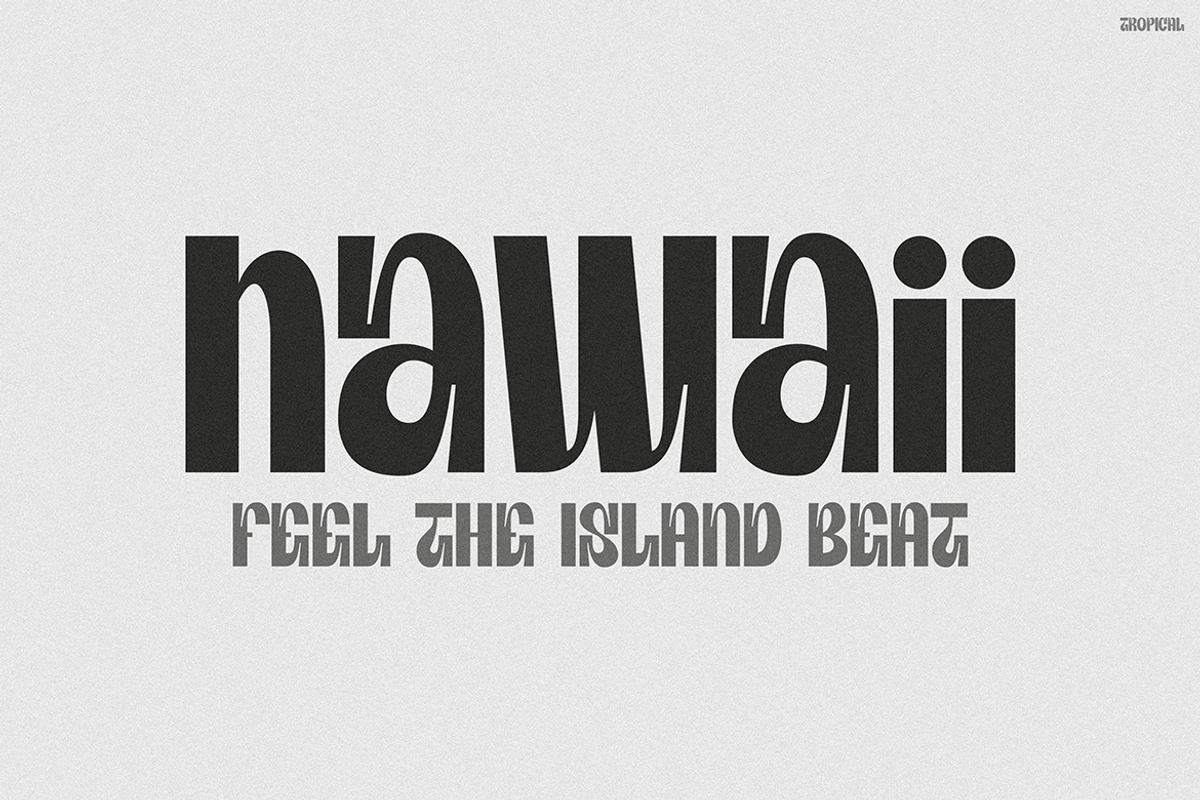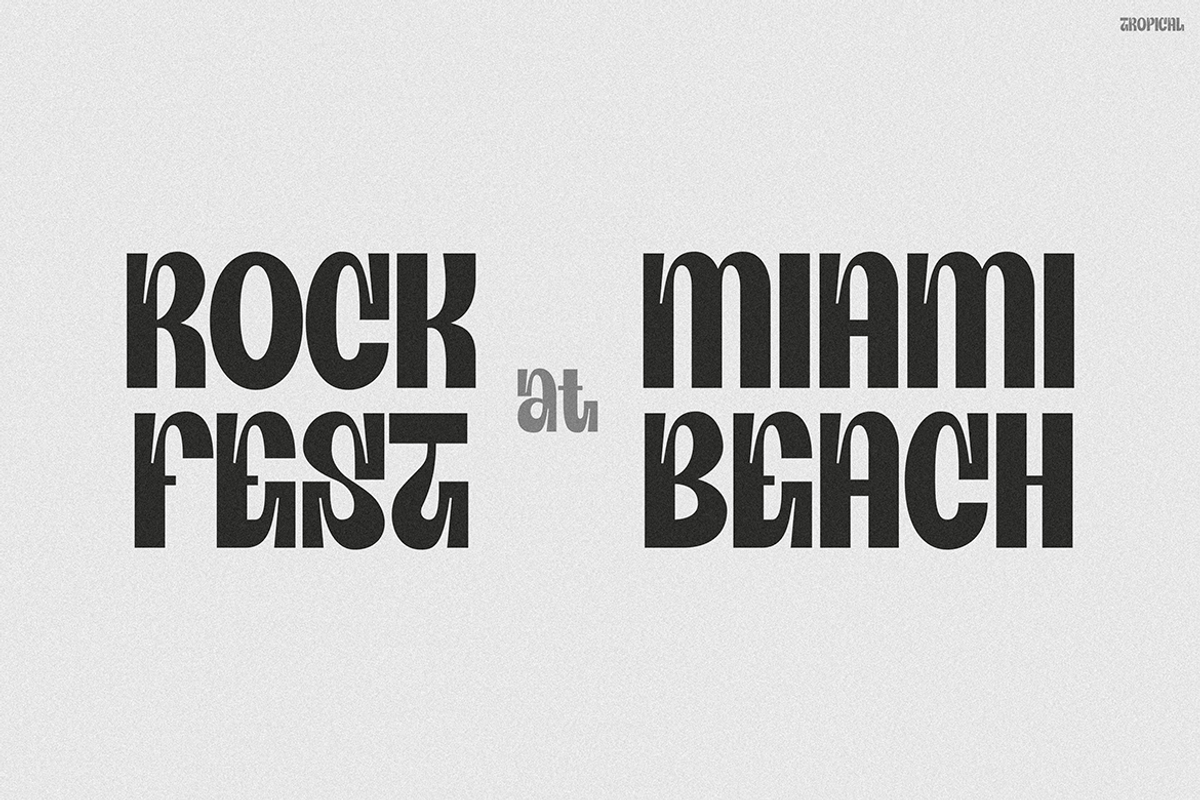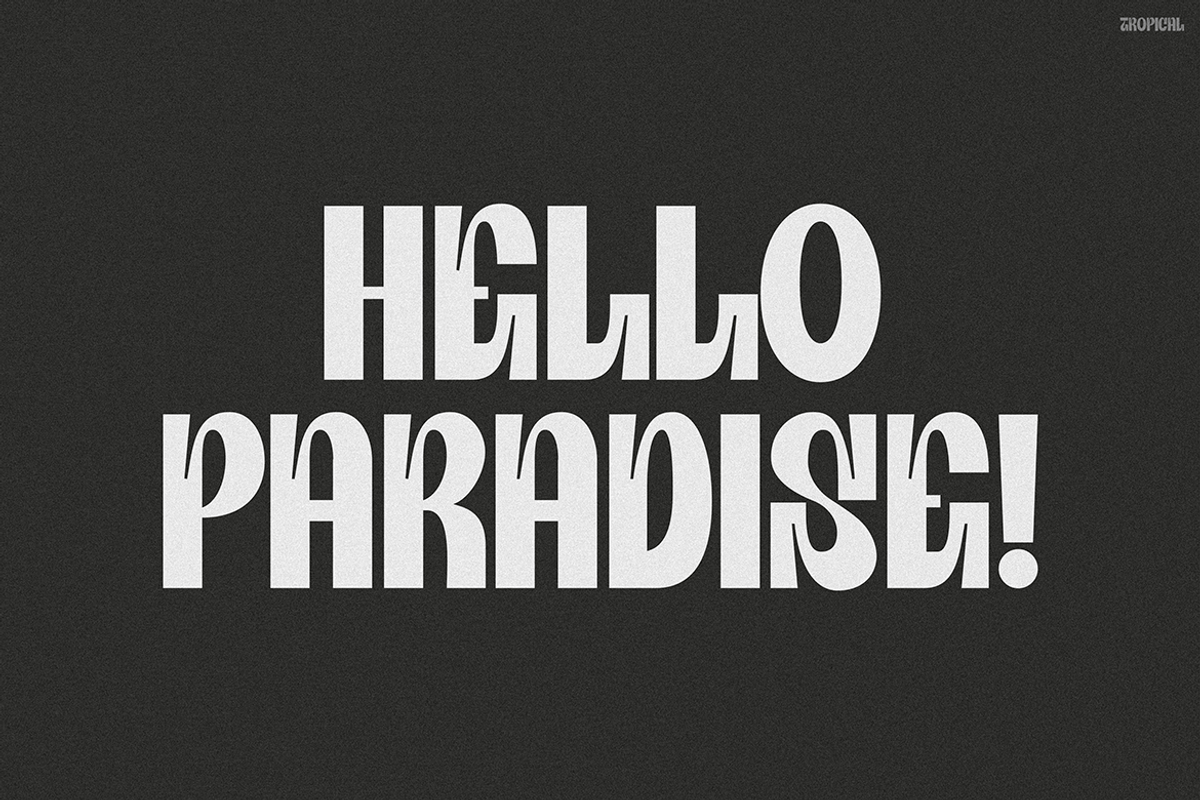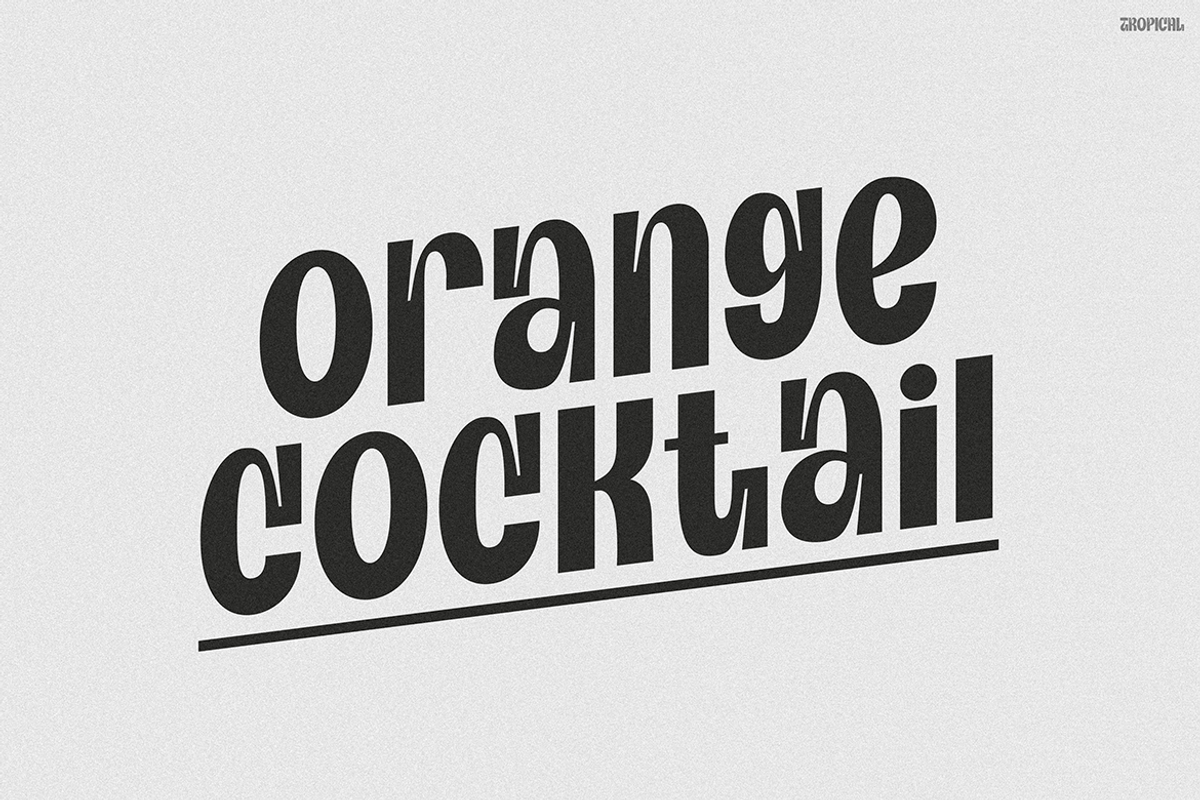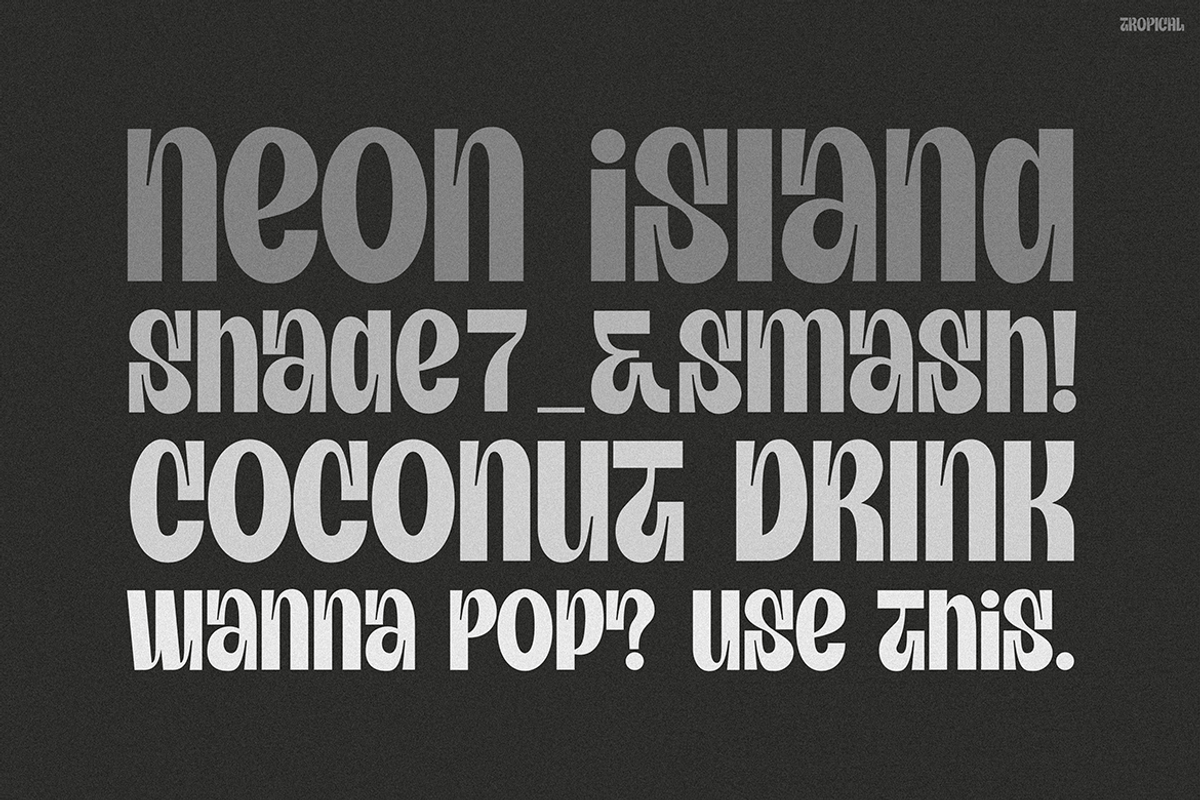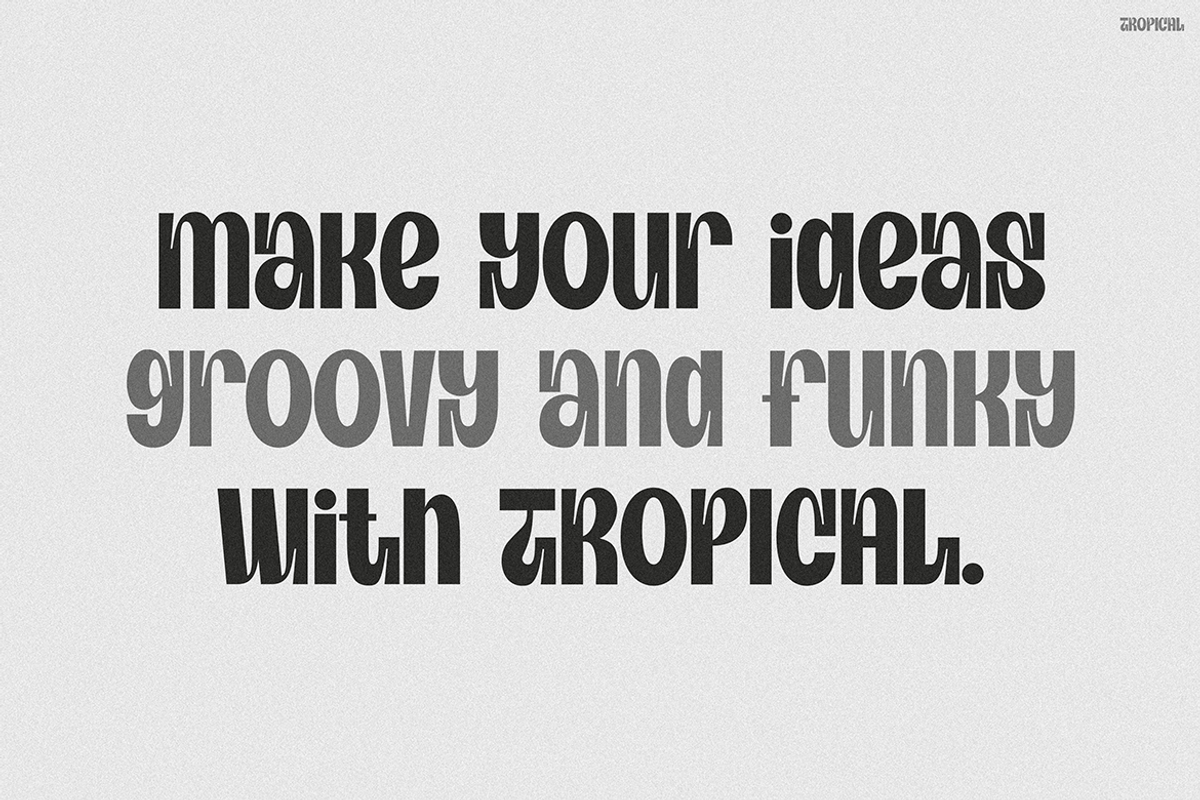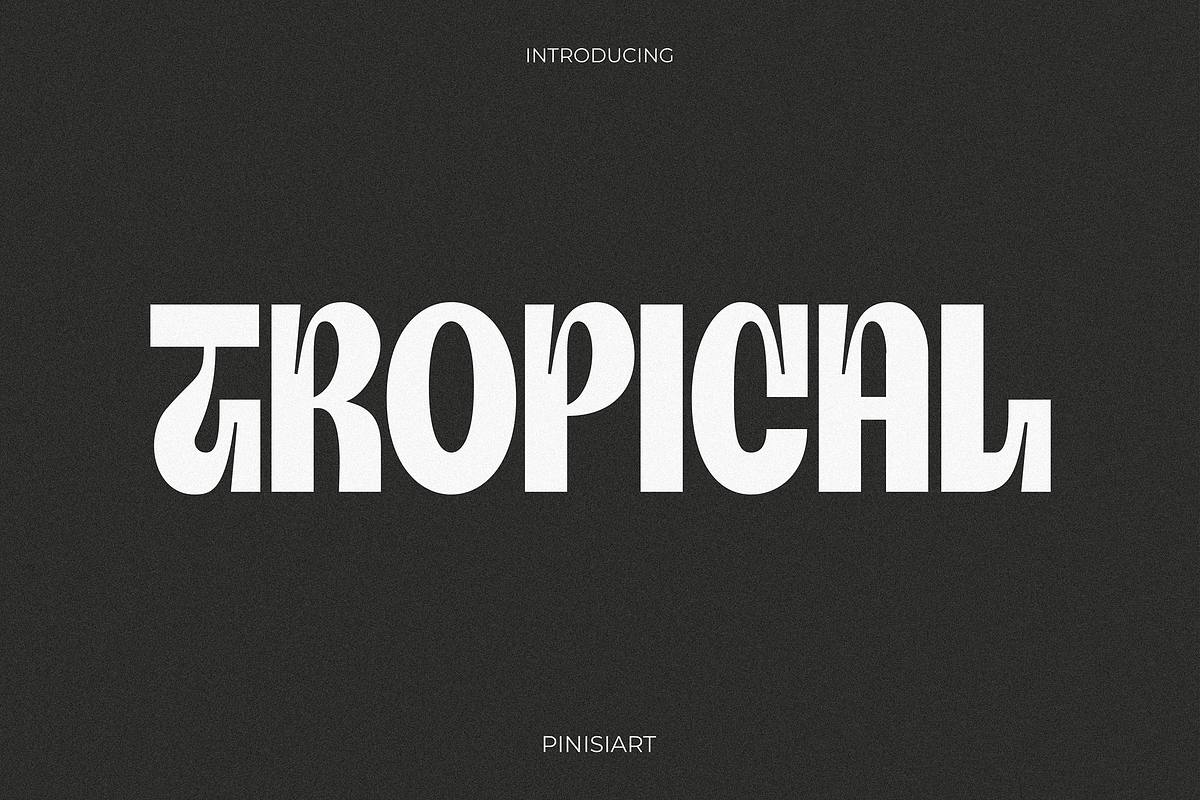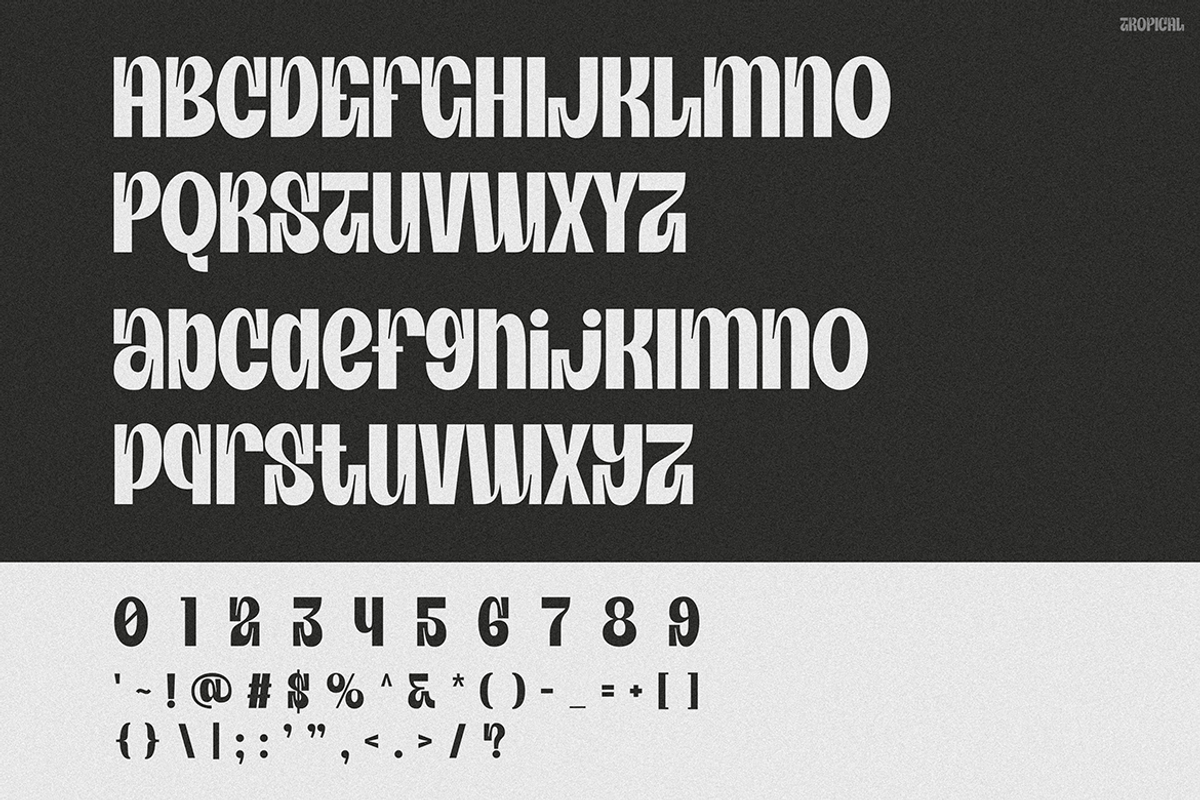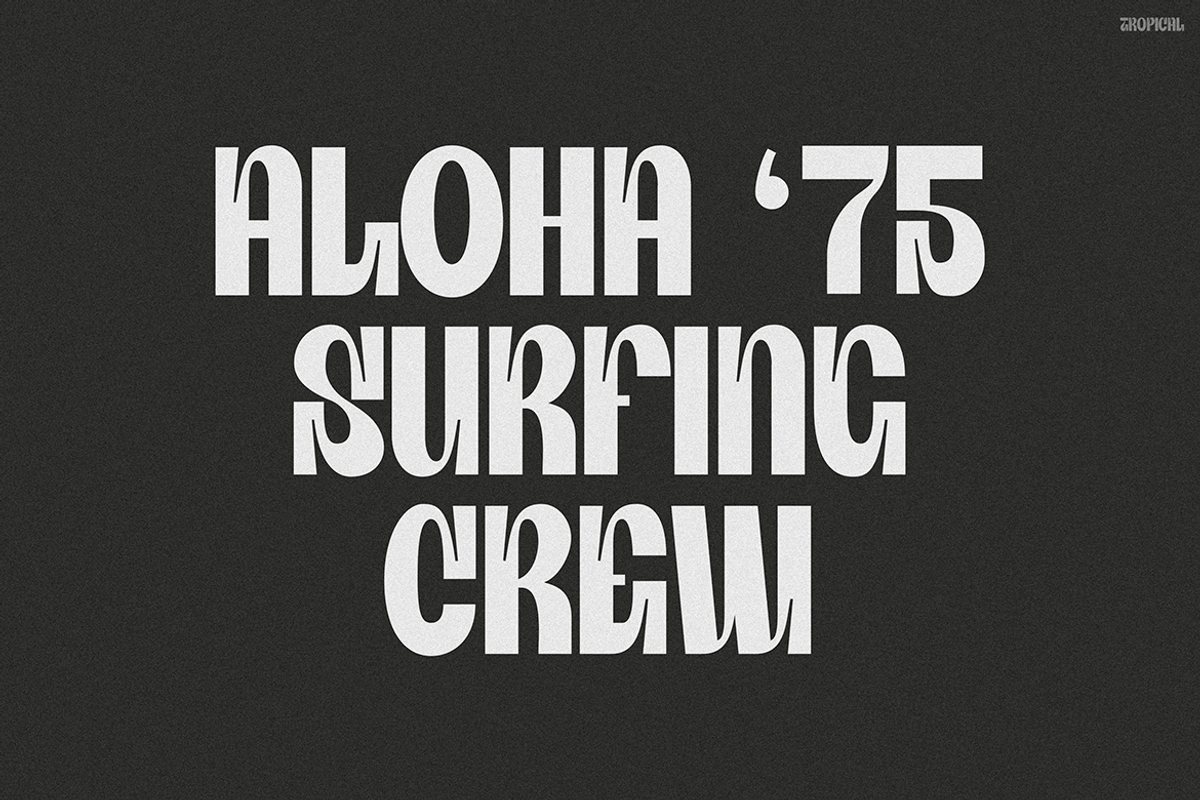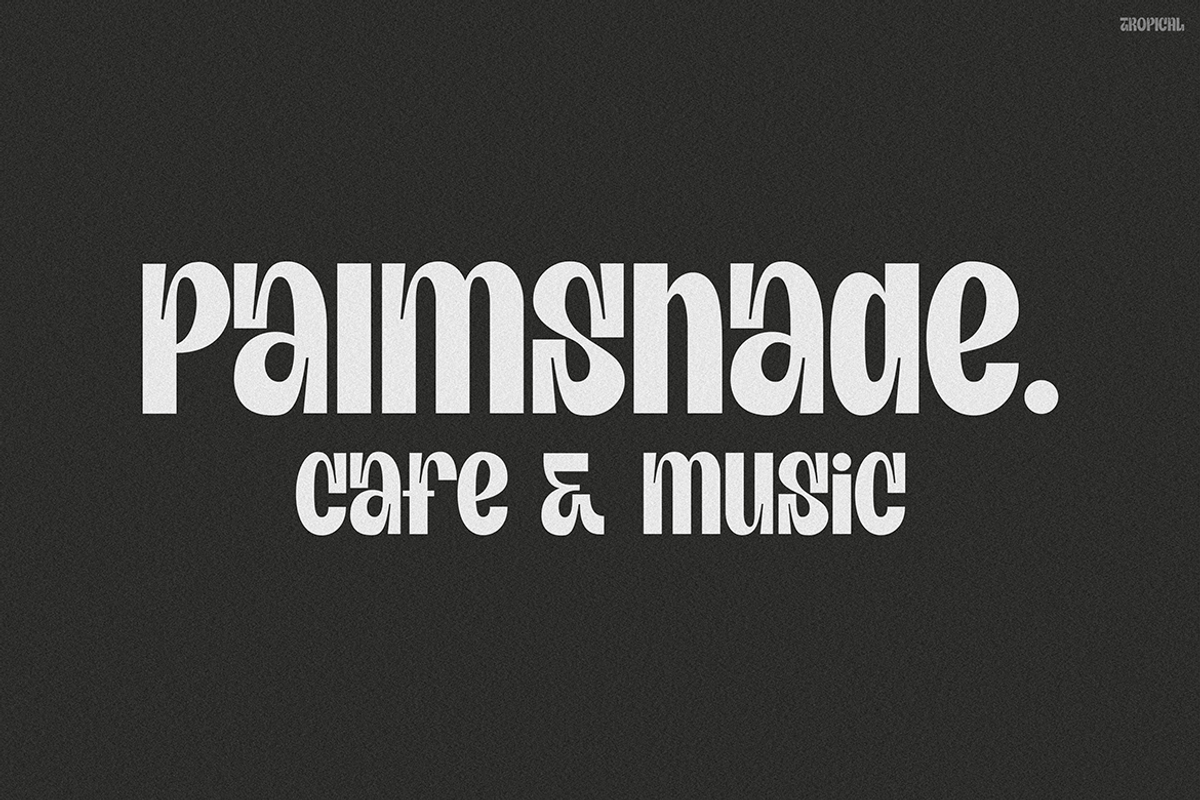
TROPICAL
Instagram Font TROPICAL is a bold and stylish typeface that grabs attention effortlessly. It blends a groovy retro vibe with modern design elements, creating a look that feels both nostalgic and fresh. Each letterform features playful curves and strong vertical strokes, which add rhythm and personality to the design. Moreover, the font’s creative letter shapes—like the quirky “a” or the flowing “r”—make it truly unique. Because of this, it offers a perfect balance between fun and sophistication. As a result, this font is ideal for visual branding, social media graphics, or editorial layouts that demand attention.
In addition, its strong contrast and consistent structure help maintain readability, even at smaller sizes. This means you can use it confidently across digital and print formats. Whether you’re designing an event poster or an Instagram story highlight, Instagram Font TROPICAL adds a vibrant twist that enhances your visual message.